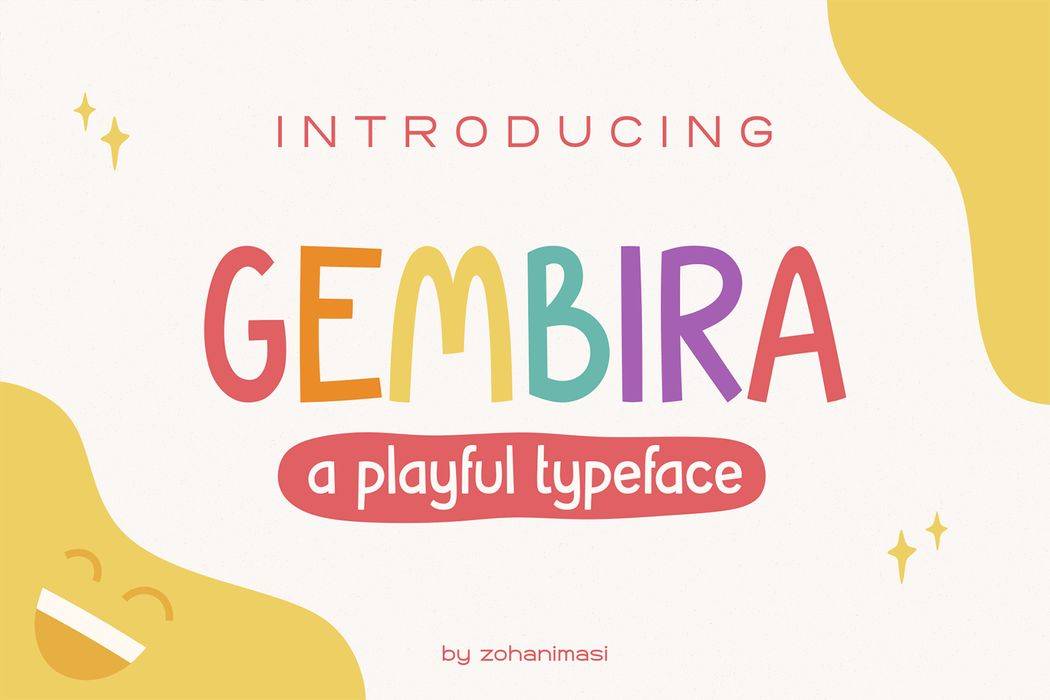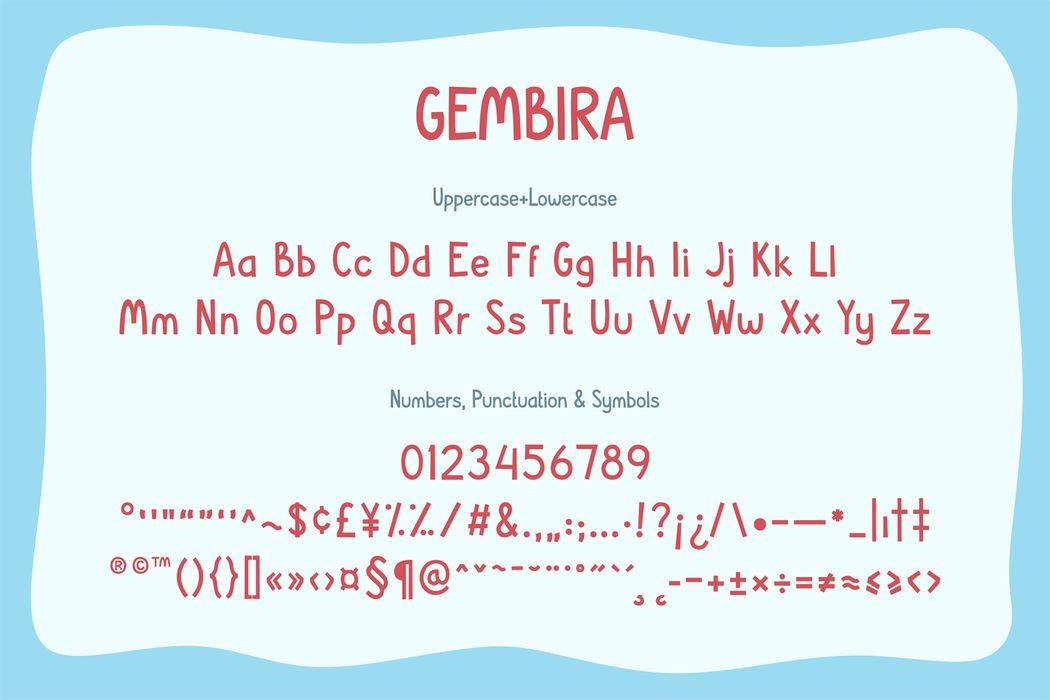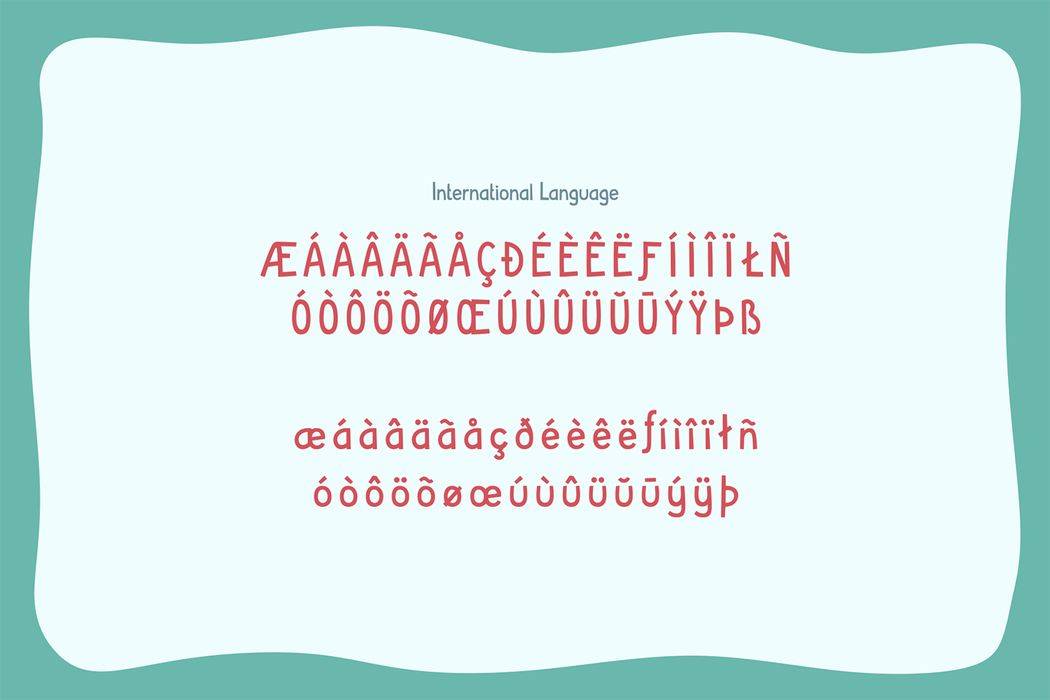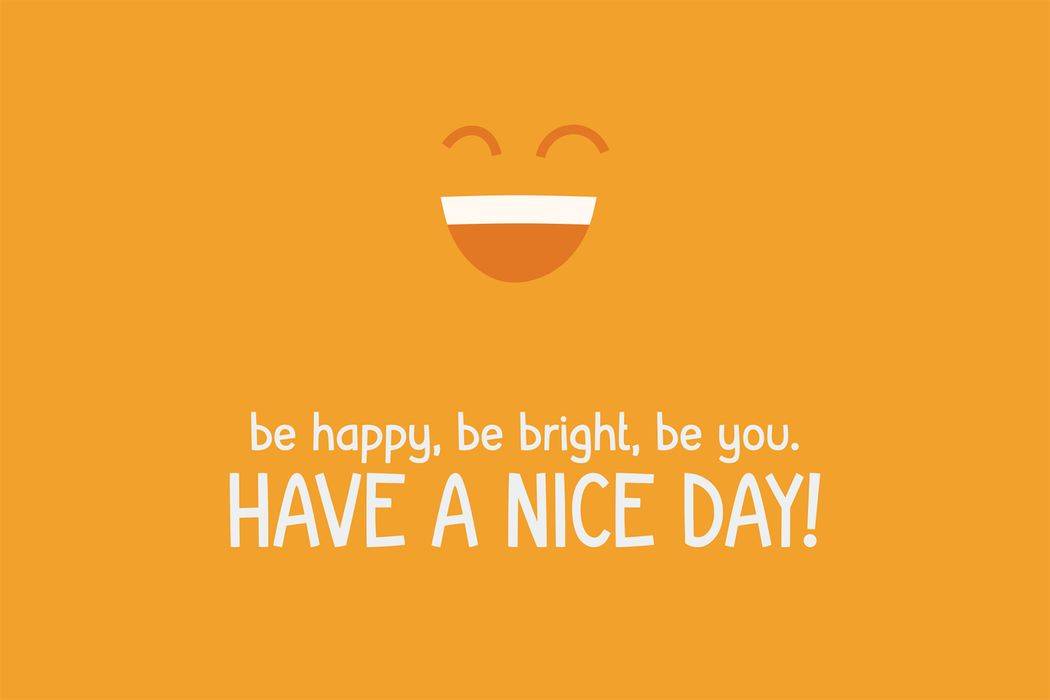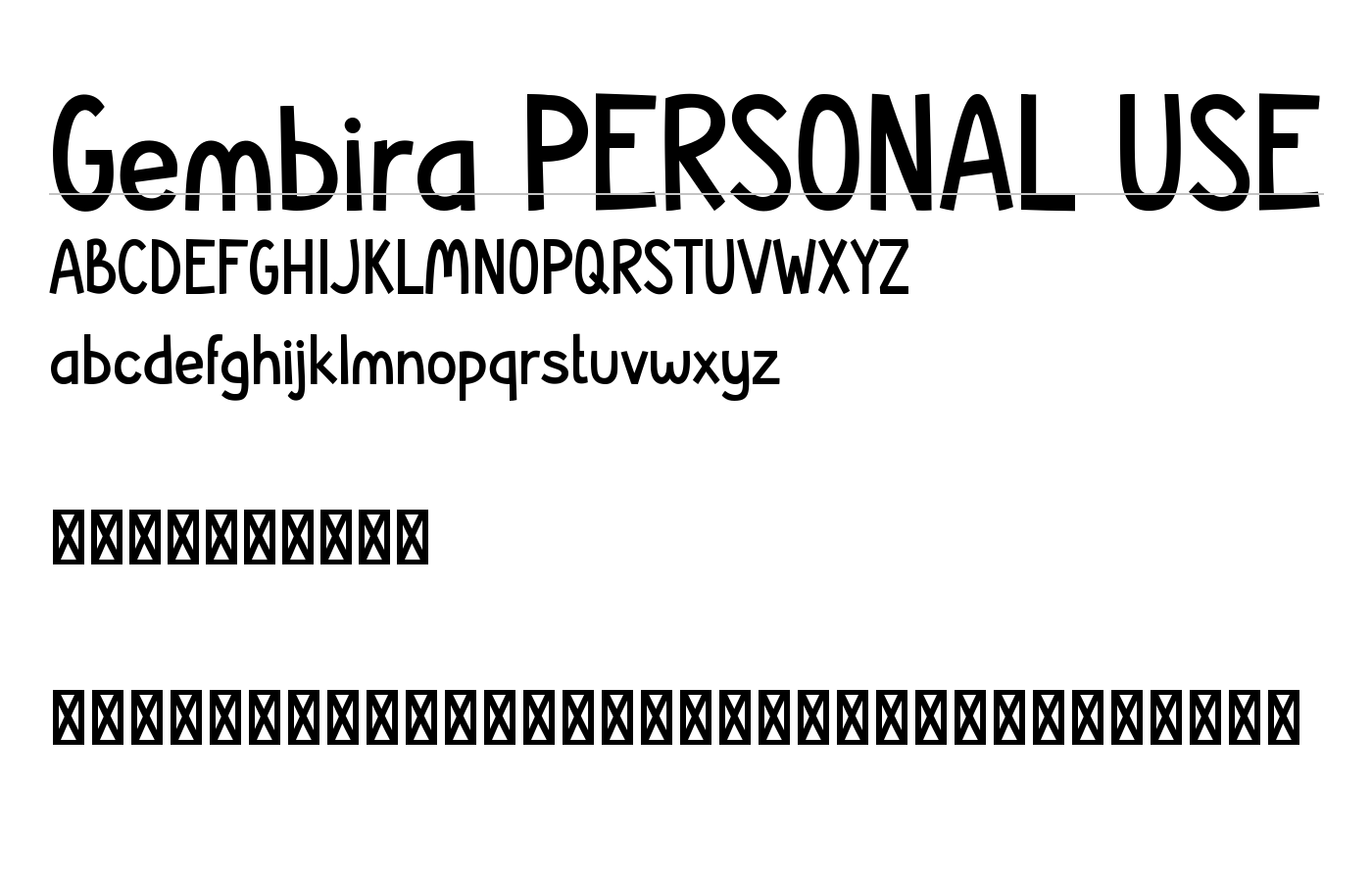
Gembira Font is a playful and casual sans serif typeface characterized by its tall, narrow letterforms and uneven stroke widths that give it a hand-drawn, whimsical feel. It works wonderfully for projects that want to express friendliness and approachability, such as children’s books, informal branding, or fun event posters. Its unique style makes it less suited for body text but ideal for eye-catching headlines and creative designs.